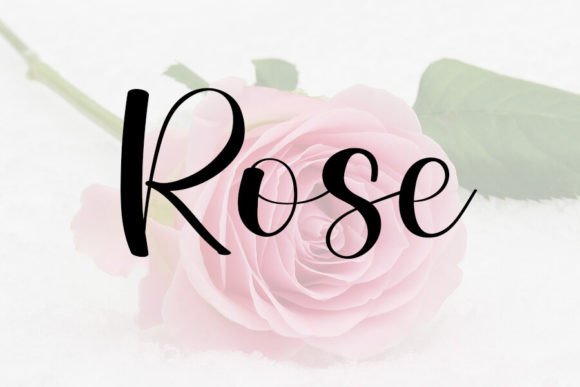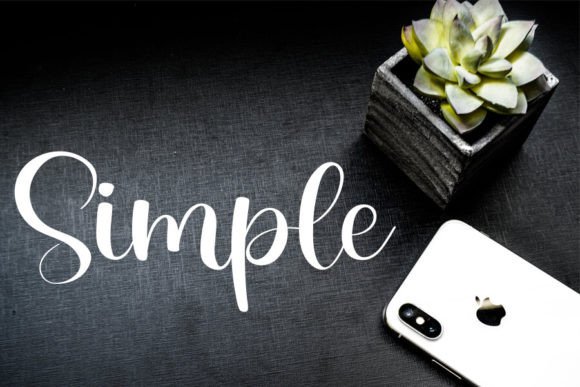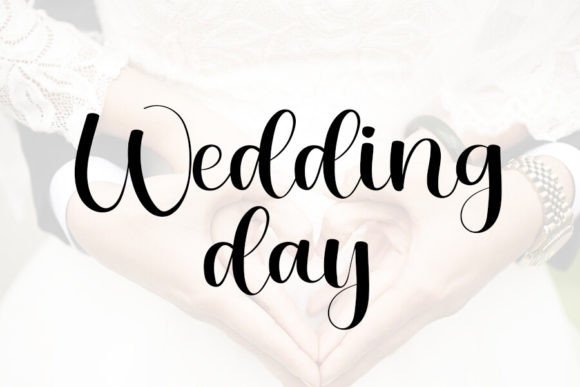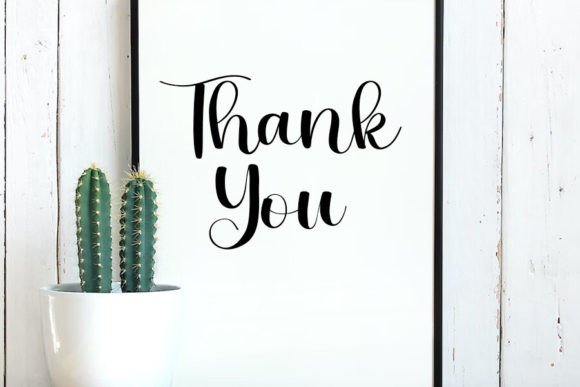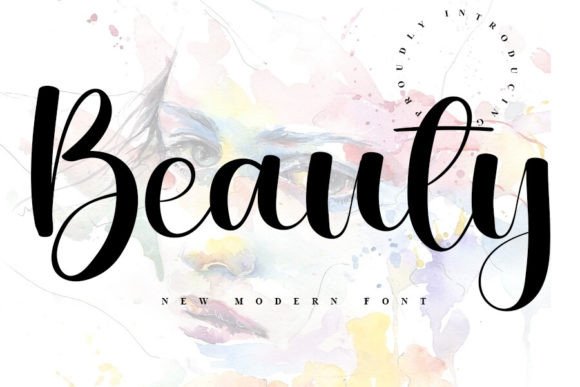
Introducing Beauty Font: The Perfect Blend of Elegance and Whimsy
Are you a designer or crafter looking for a font that can add a touch of warmth and personality to your projects? Look no further than Beauty Font, a charming handwritten typeface that combines elegance with a personal touch. With its smooth, flowing strokes and whimsical character, Beauty Font is ideal for creating heartfelt invitations, cozy branding, and creative projects that stand out from the crowd.
The Characteristics of Beauty Font
Beauty Font is a unique and versatile typeface that boasts a range of characteristics that make it perfect for a variety of design applications. Some of its key features include:
- Smooth, flowing strokes: Beauty Font features smooth, flowing strokes that give it a elegant and refined feel.
- Whimsical character: Despite its elegance, Beauty Font also has a playful and whimsical character that makes it perfect for creative projects.
- Handwritten feel: Beauty Font has a distinctly handwritten feel that gives it a personal and relatable touch.
- Versatility: Beauty Font is a highly versatile typeface that can be used for a wide range of design applications, from invitations and branding to creative projects and more.
Uses for Beauty Font
Beauty Font is a highly versatile typeface that can be used for a wide range of design applications. Some of the most popular uses for Beauty Font include:
- Heartfelt invitations: Beauty Font is perfect for creating heartfelt invitations for special occasions, such as weddings, baby showers, and birthday parties.
- Cozy branding: Beauty Font is ideal for creating cozy and inviting branding for businesses, such as boutiques, bakeries, and home decor stores.
- Creative projects: Beauty Font is a great choice for creative projects, such as art journals, scrapbooking, and mixed media art.
- Stationery and gift tags: Beauty Font can also be used to create beautiful stationery and gift tags that add a personal touch to any gift or correspondence.
Tips for Using Beauty Font
To get the most out of Beauty Font, here are a few tips to keep in mind:
- Use it with contrasting fonts: Beauty Font pairs well with contrasting fonts, such as bold sans-serif fonts or elegant serif fonts.
- Experiment with colors: Beauty Font looks great in a range of colors, from soft pastels to rich jewel tones.
- Add embellishments: Consider adding embellishments, such as flowers or leaves, to give your designs an extra touch of whimsy.
- Play with spacing: Experiment with different spacing and kerning to create a unique and eye-catching effect.
Why Choose Beauty Font?
So why choose Beauty Font for your design projects? Here are just a few reasons:
- Unique and eye-catching: Beauty Font is a unique and eye-catching typeface that will help your designs stand out from the crowd.
- Versatile: Beauty Font is highly versatile and can be used for a wide range of design applications.
- Elegant and whimsical: Beauty Font combines elegance and whimsy in a way that’s hard to find in other typefaces.
- Easy to read: Despite its elegant and cursive feel, Beauty Font is easy to read and understand.
In conclusion, Beauty Font is a charming handwritten typeface that combines elegance with a personal touch. With its smooth, flowing strokes and whimsical character, Beauty Font is ideal for creating heartfelt invitations, cozy branding, and creative projects. Whether you’re a designer or crafter, Beauty Font is a great choice for anyone looking to add a touch of warmth and personality to their designs.